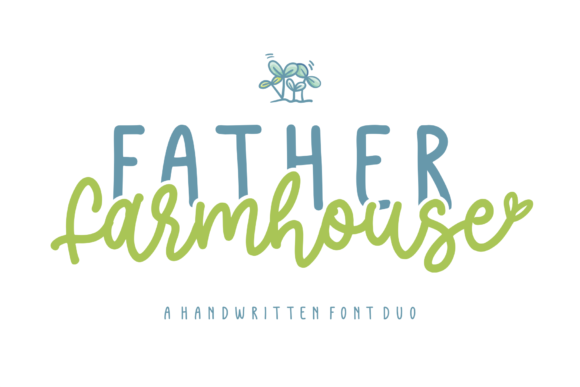
Craft heartfelt messages with Father Farmhouse Font, a charming duo that captivates with its rustic flair. This enchanting script font, paired with a clean sans serif, exudes warmth and elegance, making it an ideal choice for farmhouse-inspired creations. Unleash your creativity with Father Farmhouse Font and watch your designs come alive.
Escape the mundane and embrace the allure of the countryside with Father Farmhouse Font. Its intricate swashes, reminiscent of rolling hills and blooming meadows, add a touch of whimsy to any project. Create breathtaking wedding invitations, heartwarming greeting cards, and personalized home décor that reflects your love for the simple, yet beautiful things in life.
Whether you're a seasoned designer or a crafting enthusiast, Father Farmhouse Font will elevate your projects with its versatility. Its dual nature allows you to seamlessly blend rustic charm with modern elegance, making it perfect for a range of applications. From eye-catching logos and branding materials to heartfelt letters and heartfelt notes, Father Farmhouse Font effortlessly adapts to your creative vision.
Step into a world of rustic elegance with Father Farmhouse Font. Its charming personality and endless possibilities make it the perfect addition to your font collection. Download Father Farmhouse Font today and embark on a creative journey that will leave you and your audience spellbound.